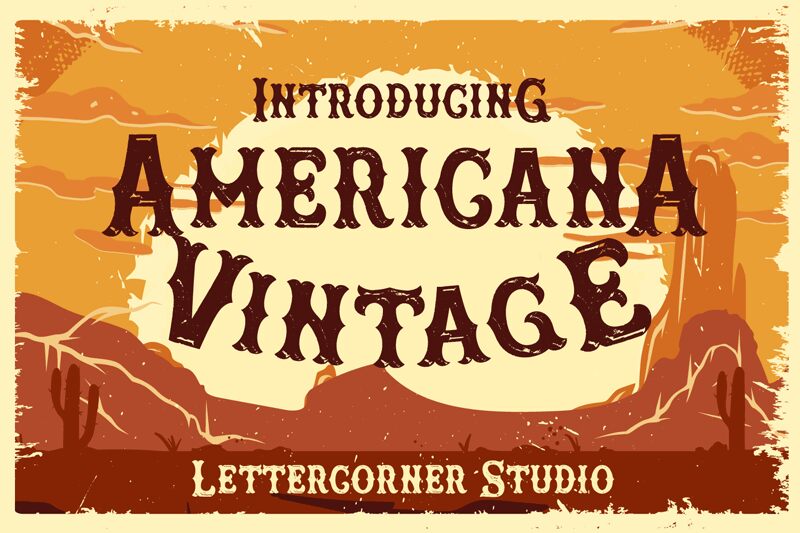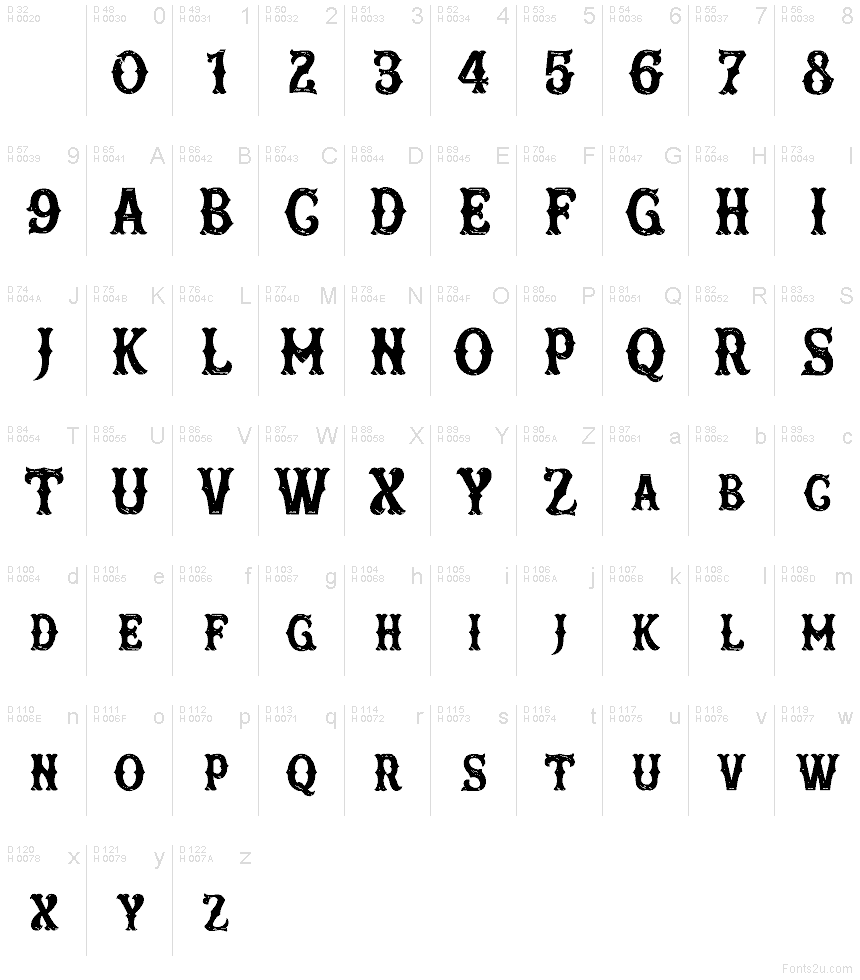
Americana Vintage font by Mocha Frappuccino is a free bold western display font that wears its grit with pride. Built around rugged, whittled strokes and chunky, antler-like serifs, it has that ink-soaked, woodcut texture that turns a simple word into a poster headline. The forms feel slightly condensed with tight rhythm, so lines read like stacked saloon placards—loud, legible, and charmingly rough.
Using Americana Vintage, headlines snap with rodeo-post flair, making it a natural fit for barbecue menus, country album covers, craft beer labels, festival posters, themed packaging, and vintage signage. This free font shines when set big with a touch of extra tracking; pair it with a clean condensed sans to let the carved details breathe.